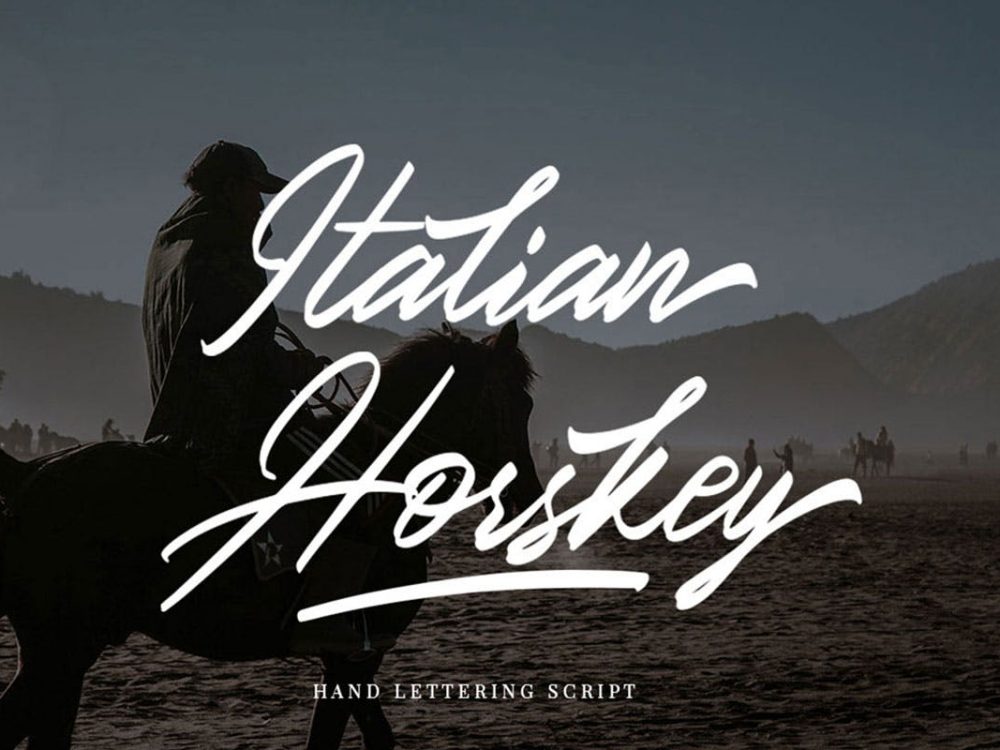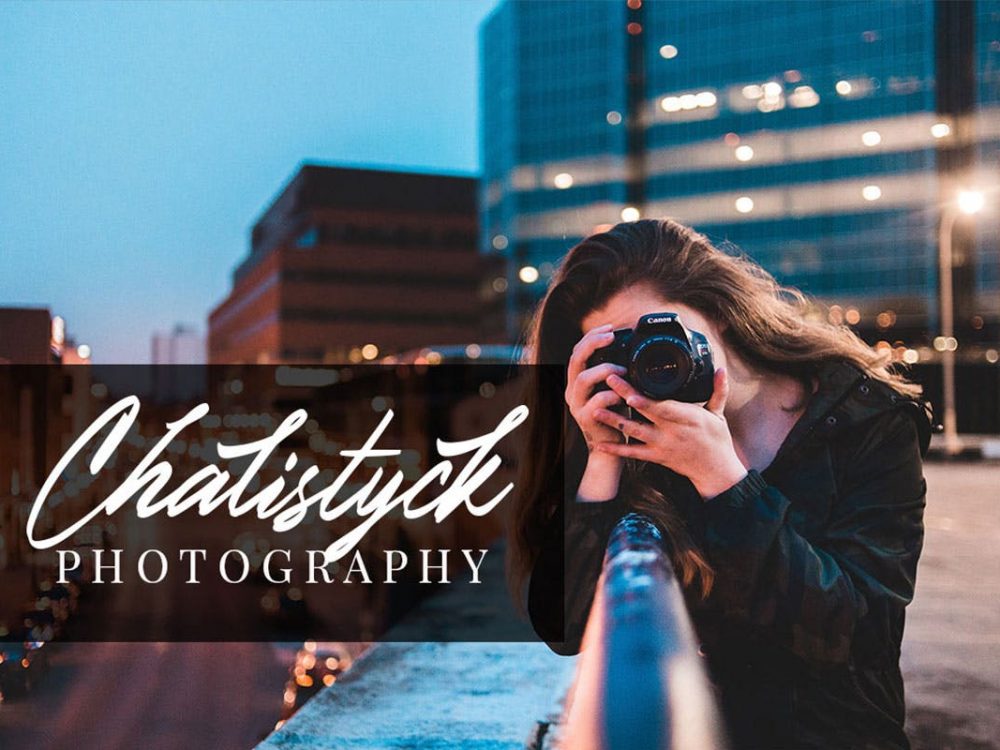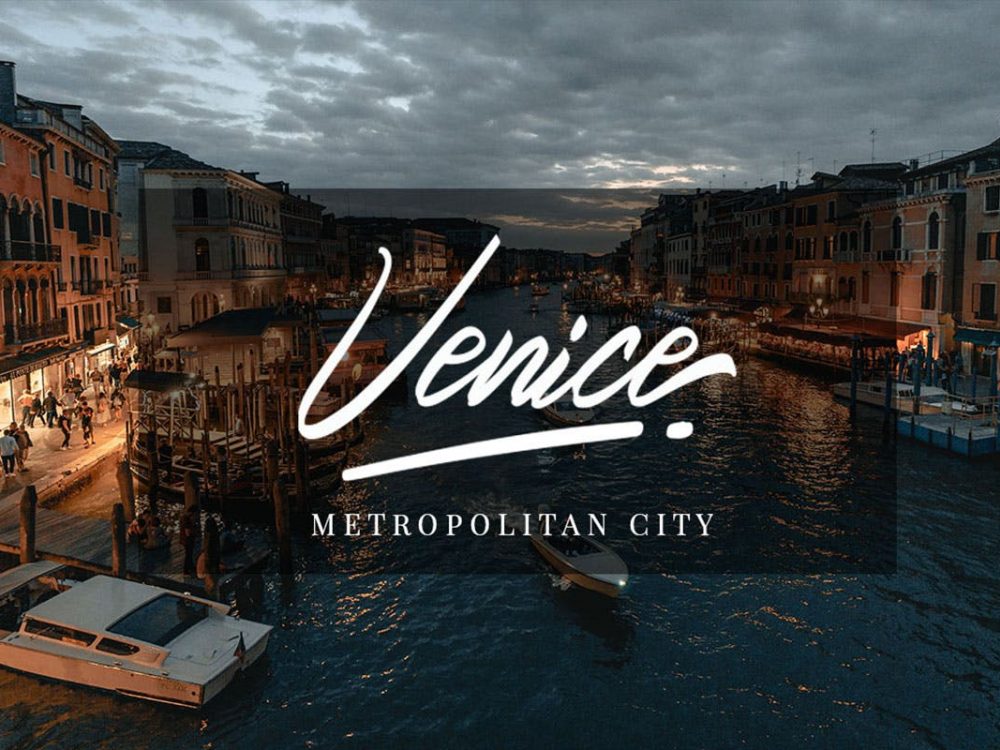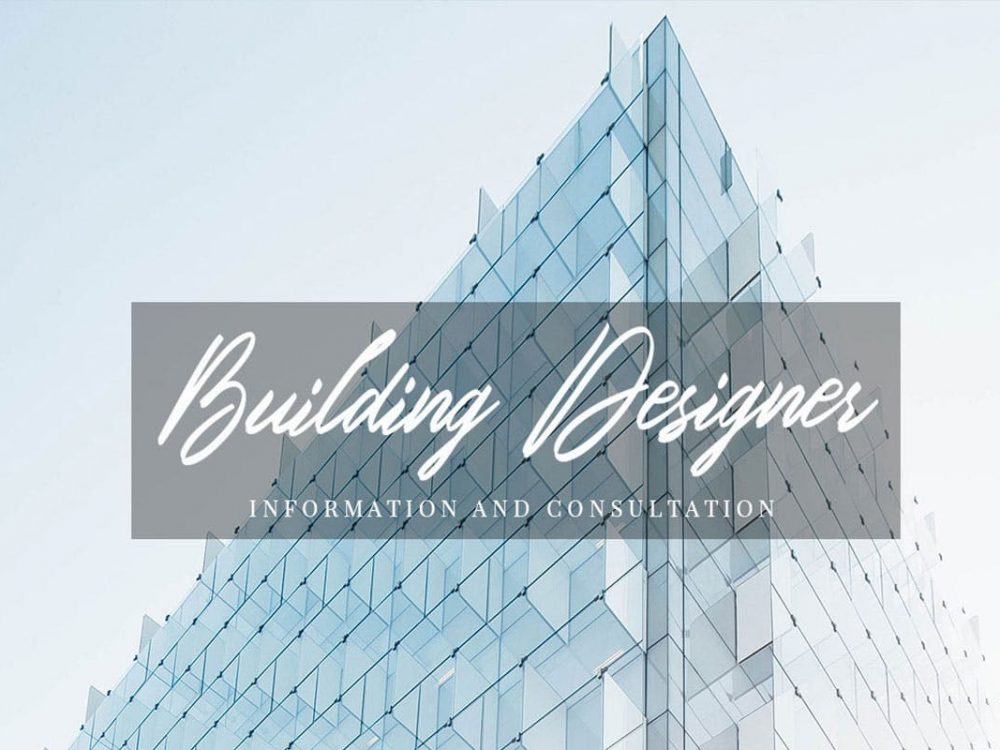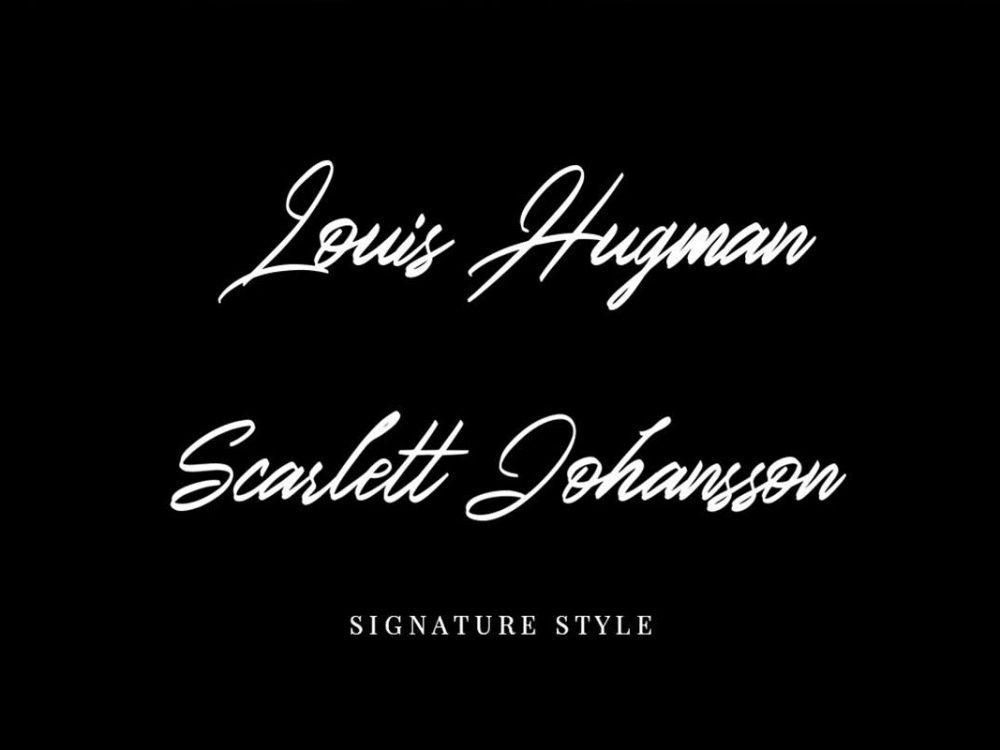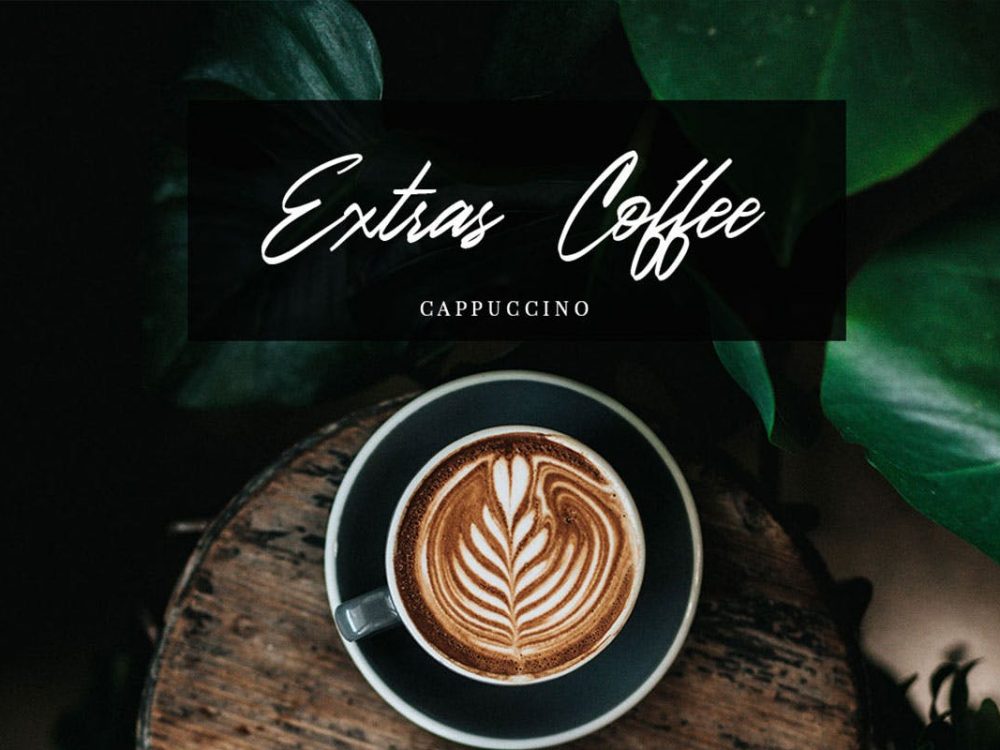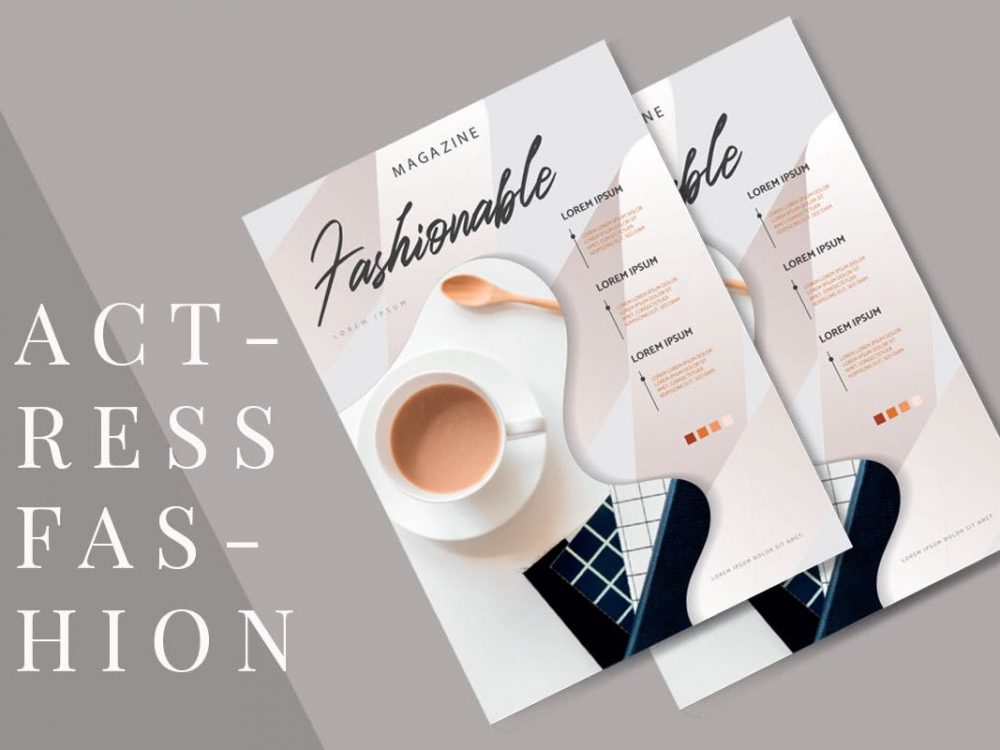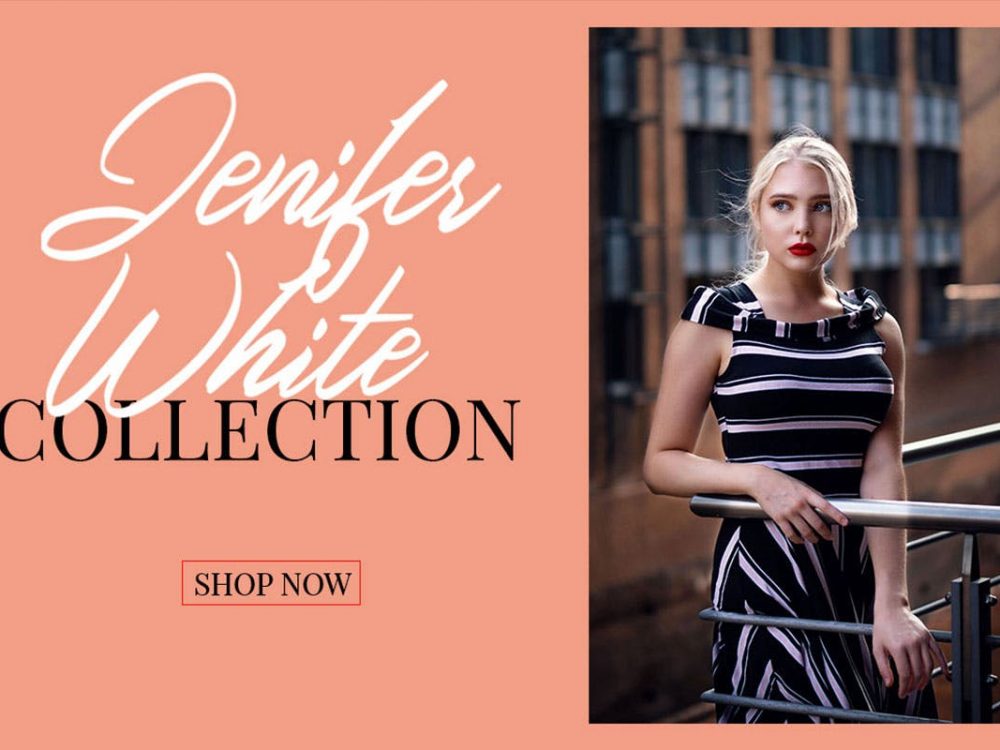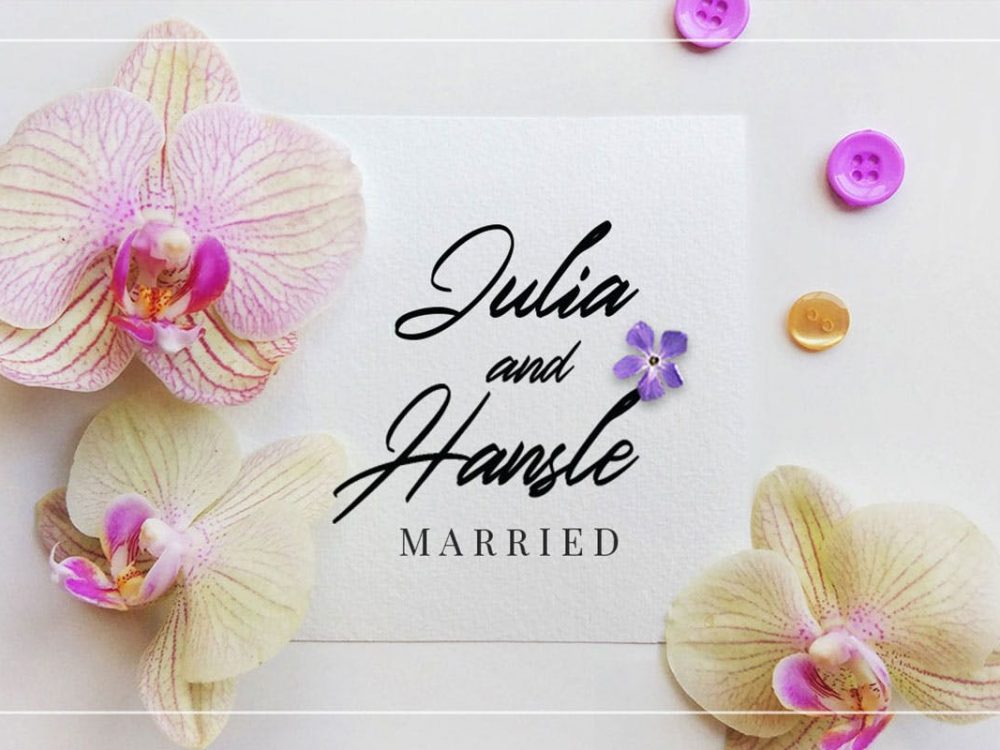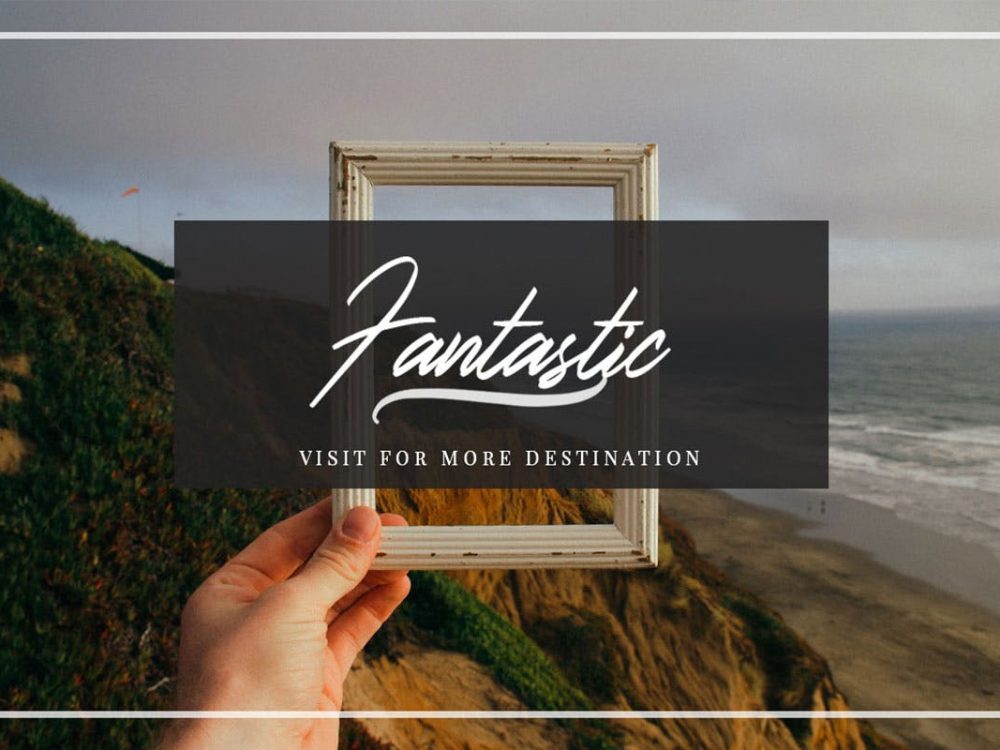
Free Italian Horskey Script Font
Free Italian Horskey Script Font is a memorable and interesting handwritten font that sets itself apart from other fonts with its elegant calligraphic style and exquisite capital letters. This font is presented in a demo version and will help you create unique design projects and improve your professional level. Use this font to create memorable posters, wedding invitations, cards, branding, flyers, and more.